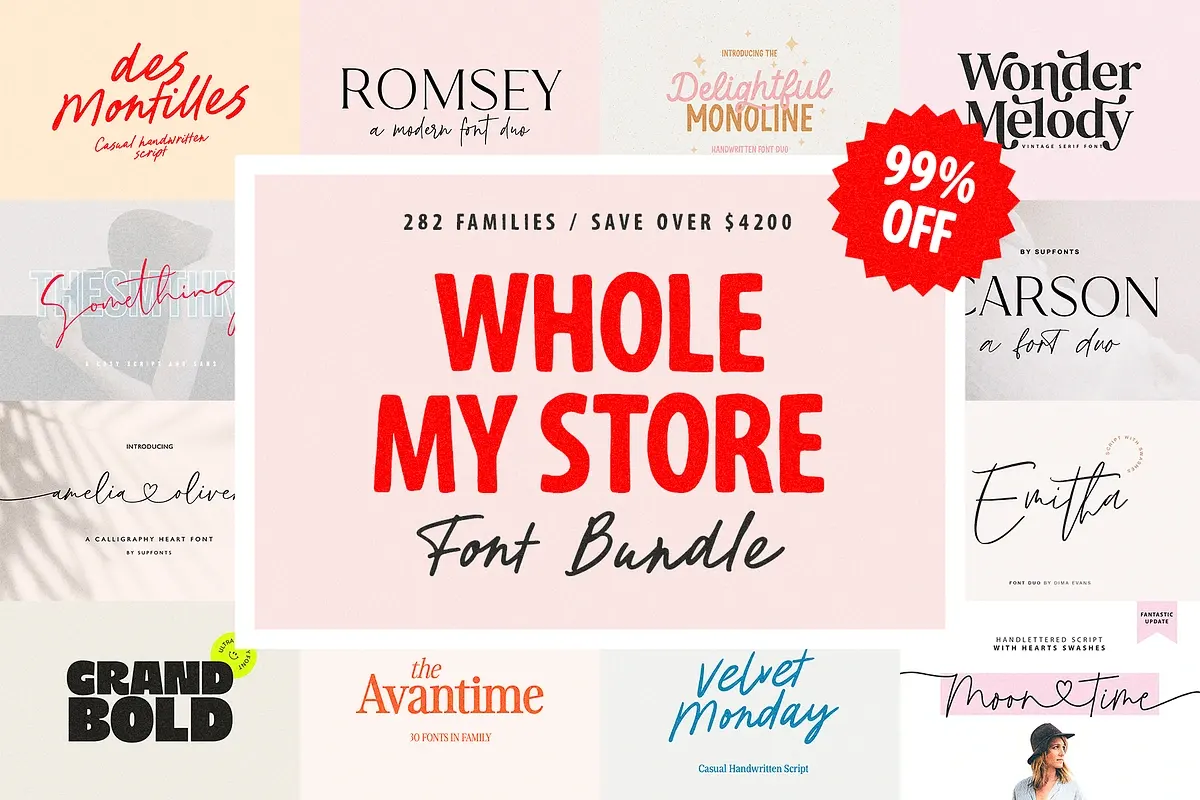
The bundle includes numerous fonts, offering everything you need for logo design, branding, social media graphics, posters, invitations, and more. With multiple font weights and styles, you’ll have the versatility to craft dynamic and professional typography for any project. Each font includes uppercase and lowercase letters, numerals, punctuation, and multilingual support, ensuring it meets the needs of your global design projects.
Whether you’re designing a luxury brand, crafting a fun and quirky logo, or creating a stunning social media campaign, ALL MY FONTS Bundle provides a wide array of fonts to make your designs stand out.